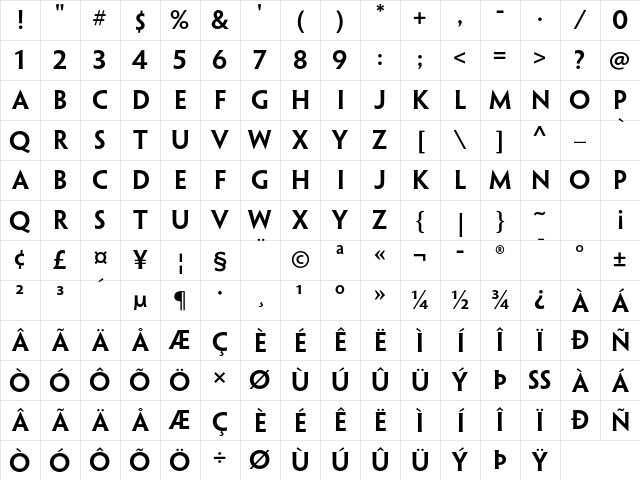
Penumbra Flare Std Semibold
Style: Semibold
Designer: Lance Hidy
Design Context for Penumbra Flare Std
Penumbra Flare Std is a composed and adaptable typeface that performs quietly and consistently across a wide range of design contexts. Its bold stroke weight gives it real presence on the page.